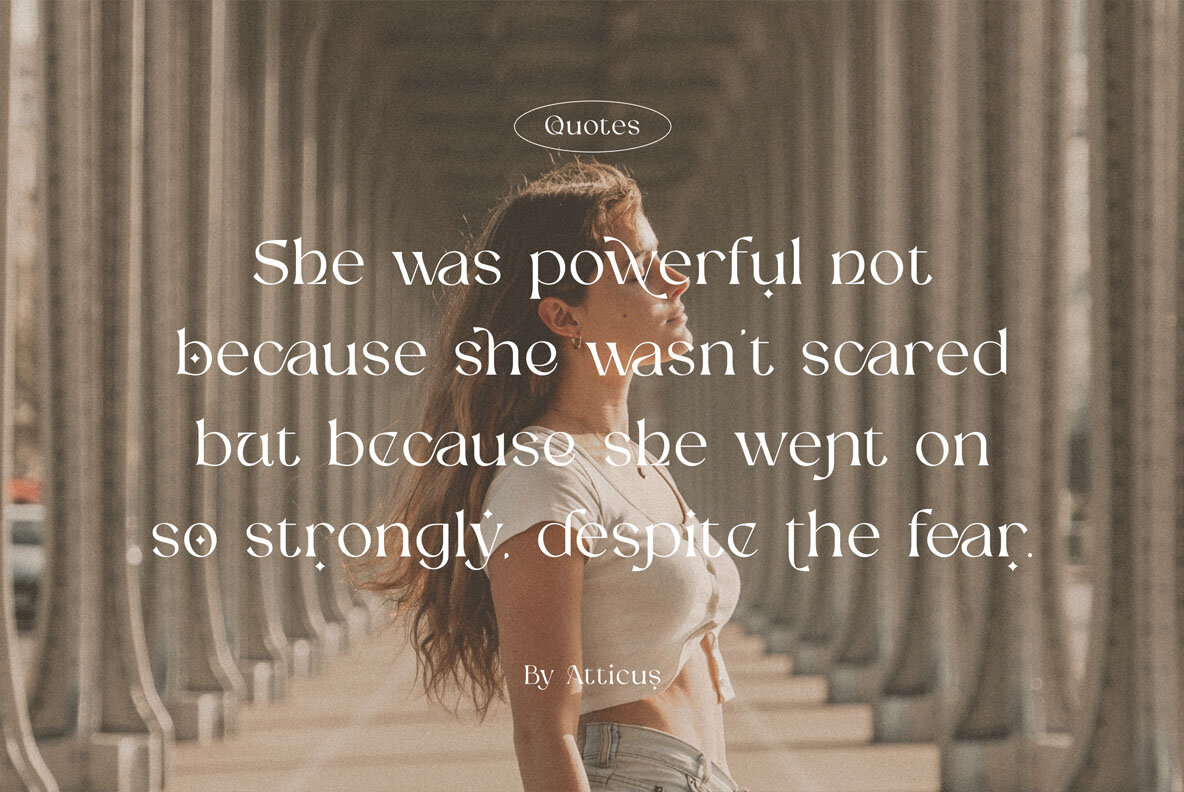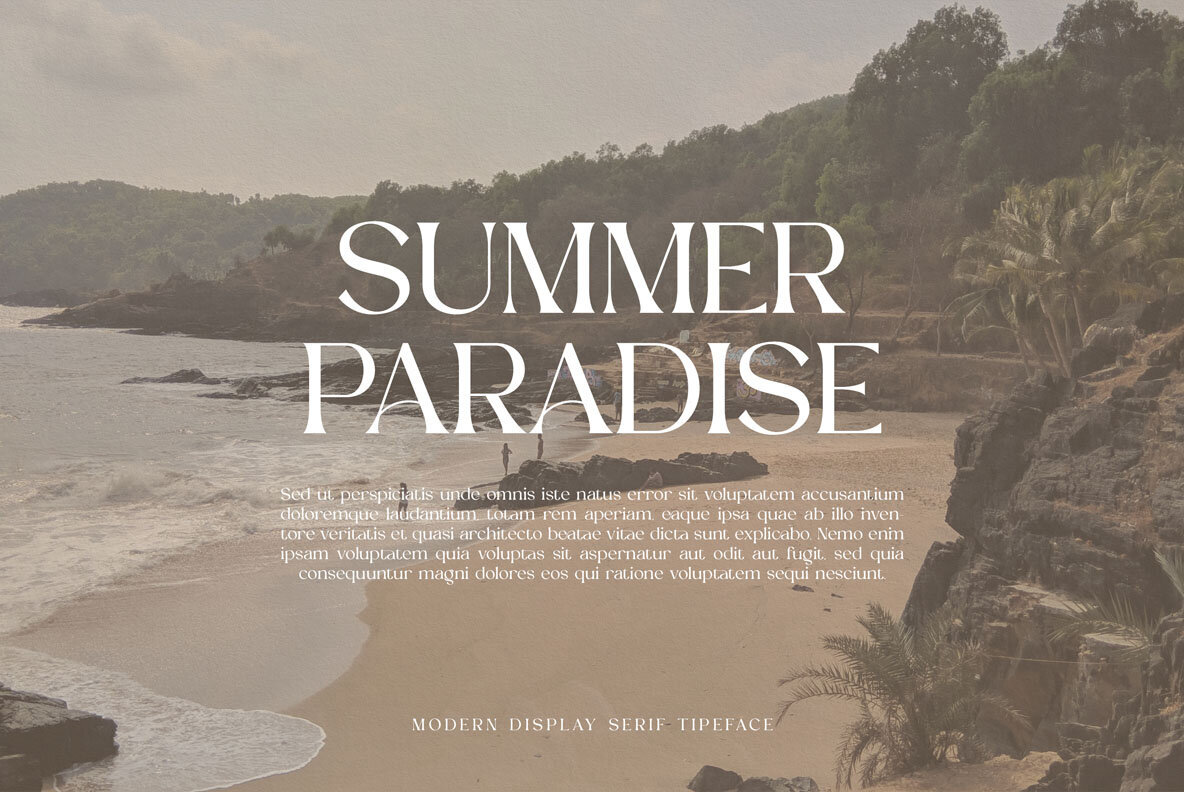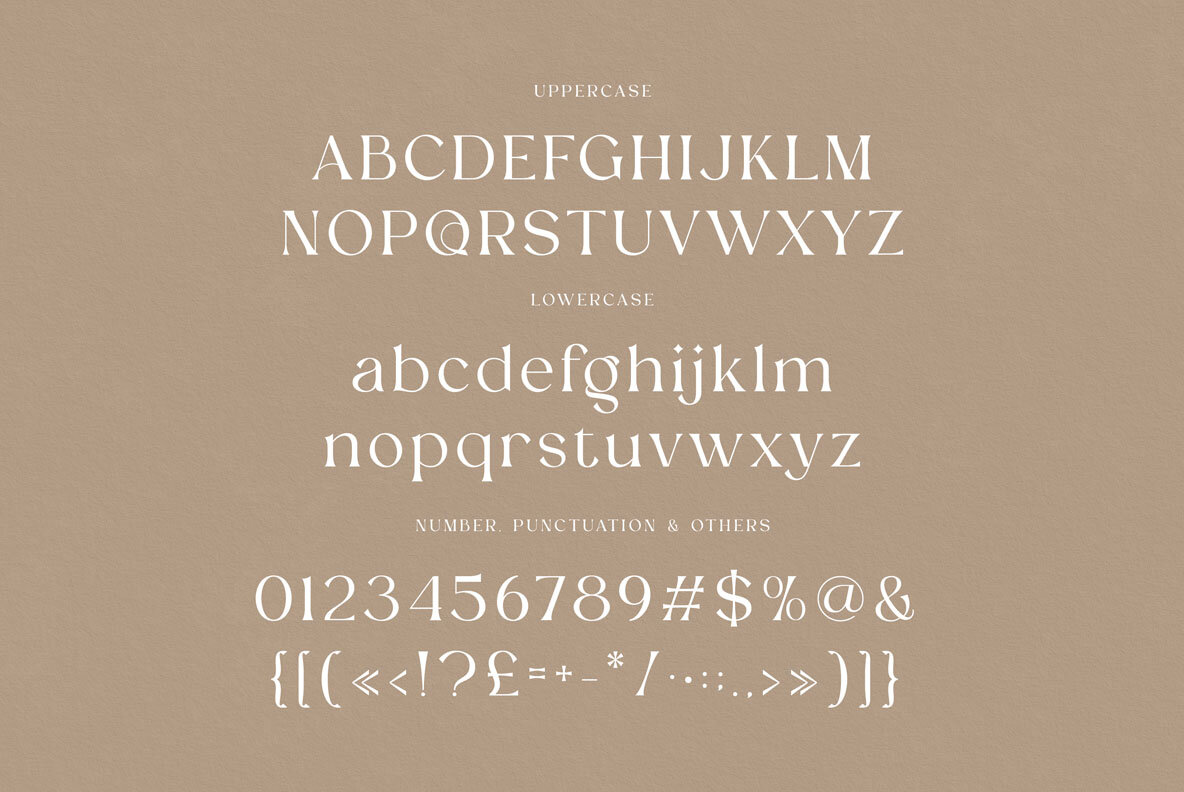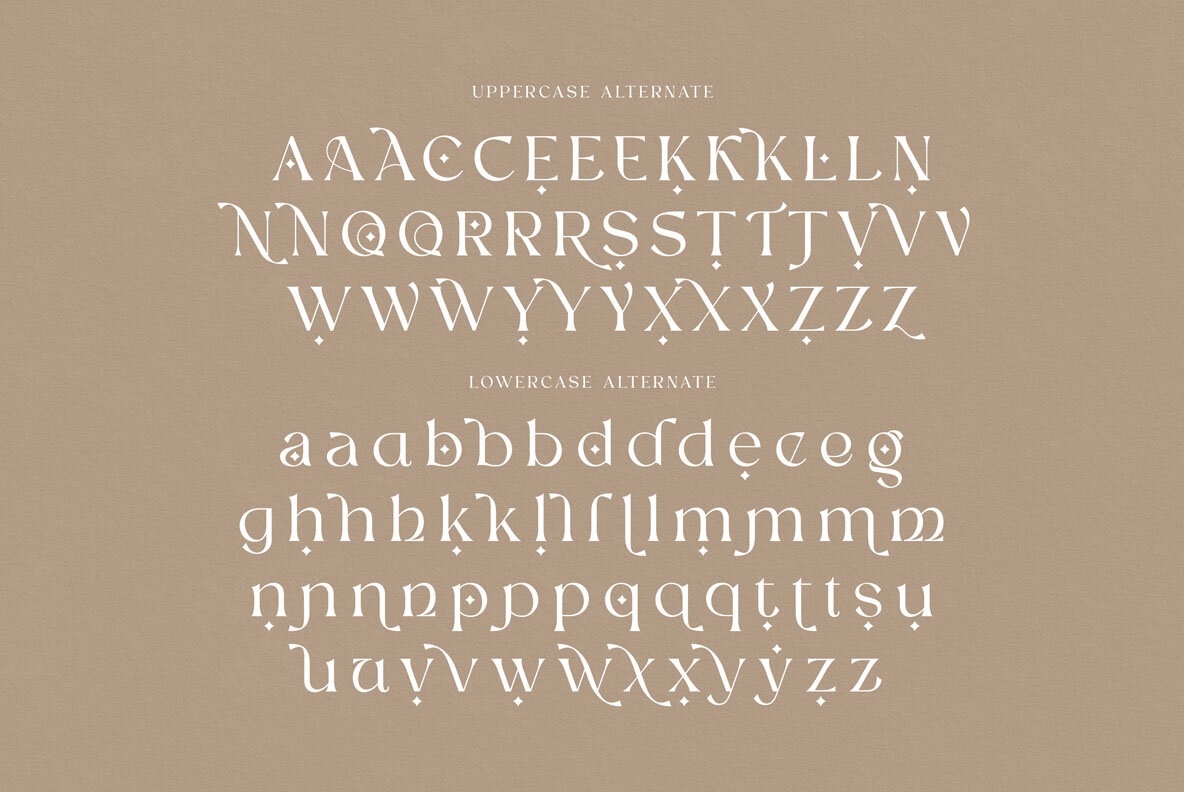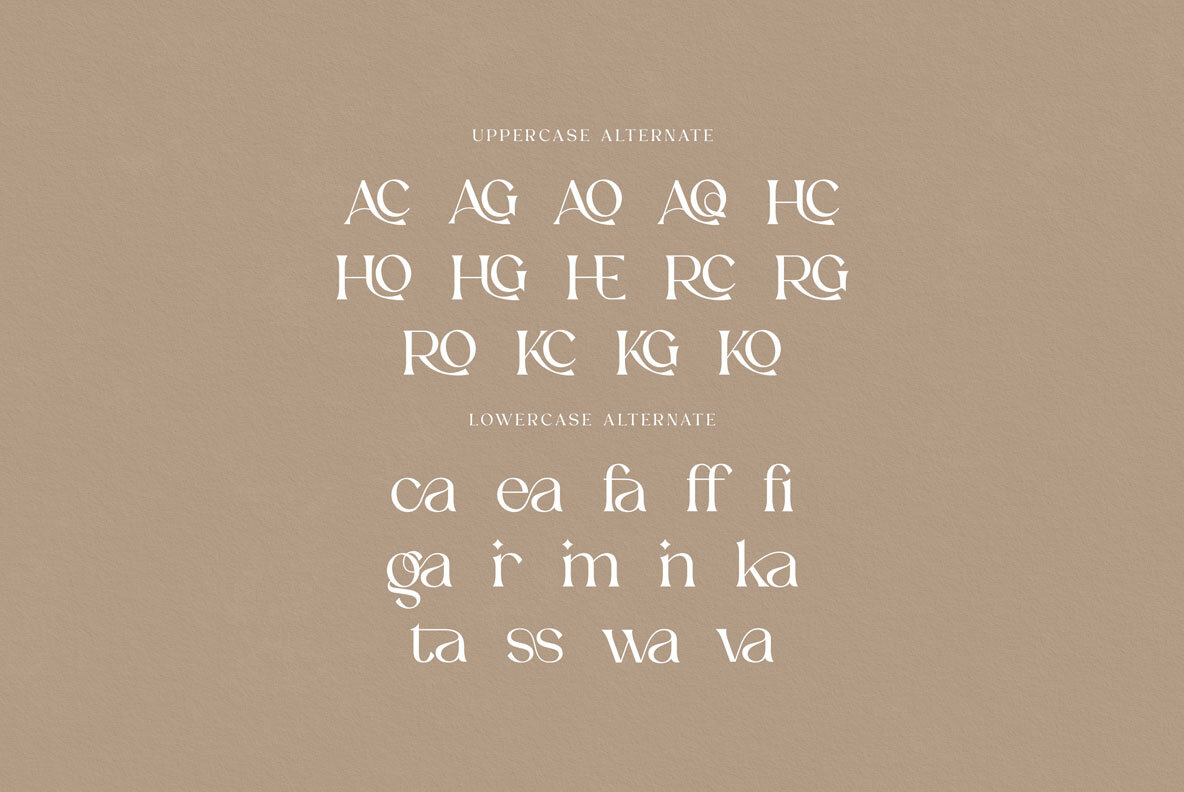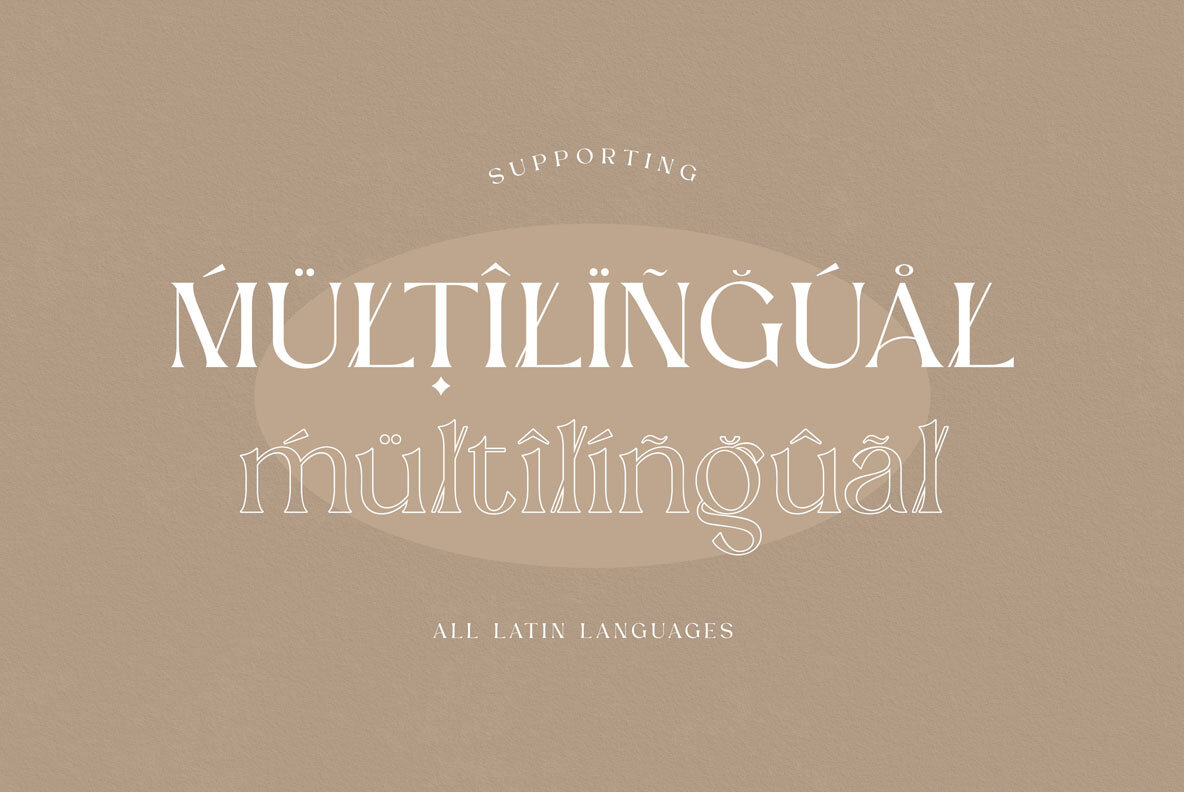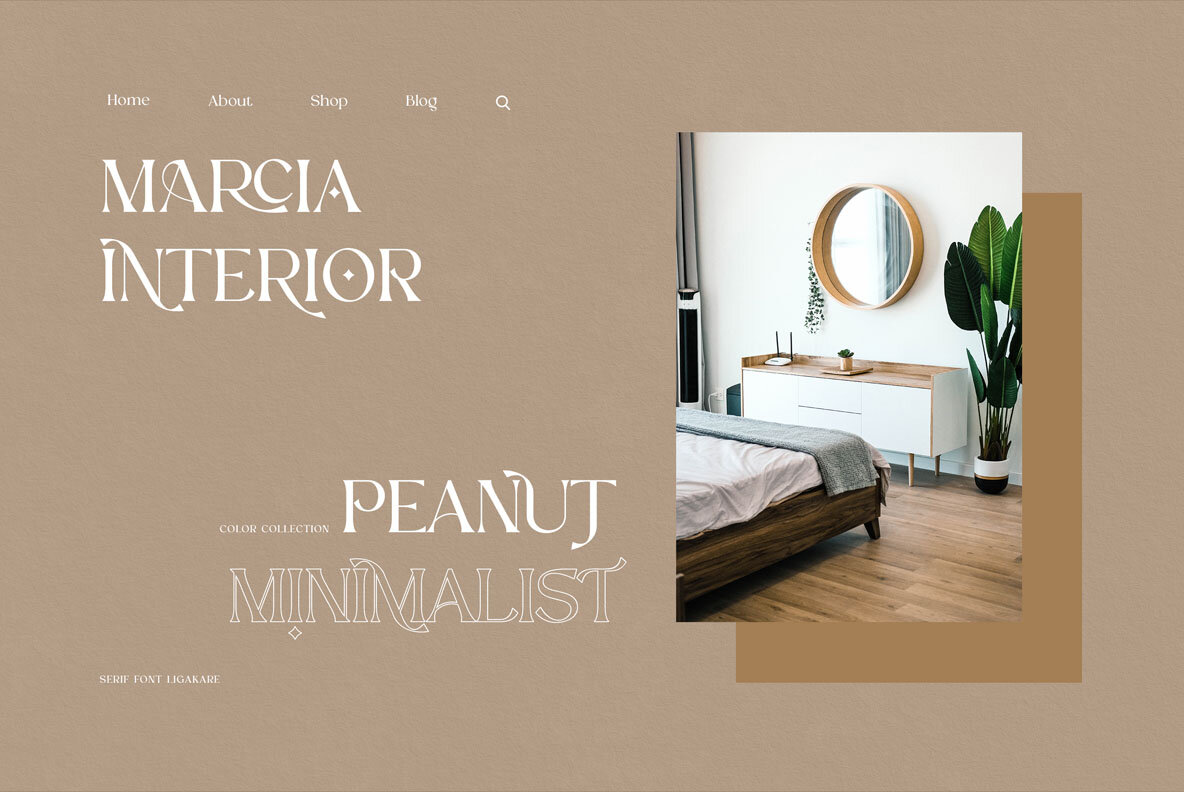
Ligakare Font
Introducing Ligakare, a stylish and versatile serif font that will elevate your design projects to the next level. With its unique combination of classic and modern styles, Ligakare is perfect for any branding project that requires a touch of elegance and sophistication. This font comes in both regular and outline versions, giving you even more flexibility and creative options. And with its multilingual support, alternate characters, and plenty of ligatures, Ligakare makes it easy to create unique and original logo designs or website headers. Whether you're working on a luxury brand or a modern startup, Ligakare is the perfect choice for adding a touch of class and style to your designs. So why wait? Get Ligakare today and start creating stunning designs that stand out from the crowd.